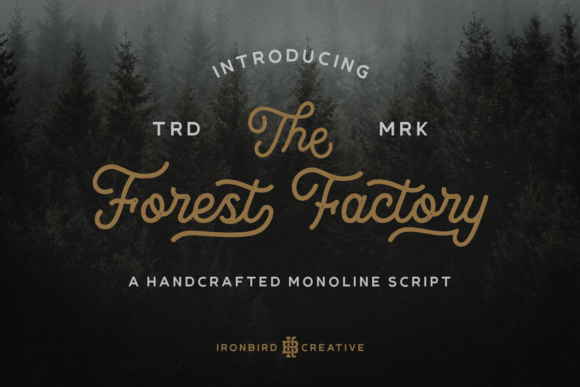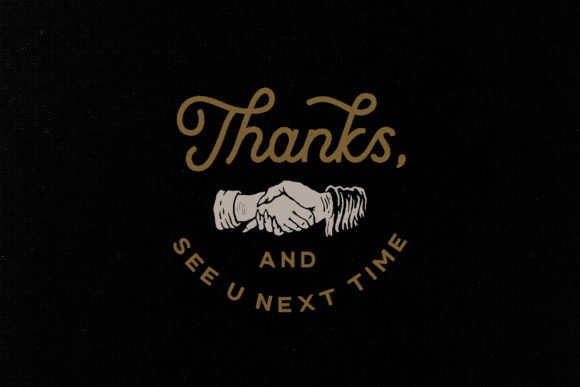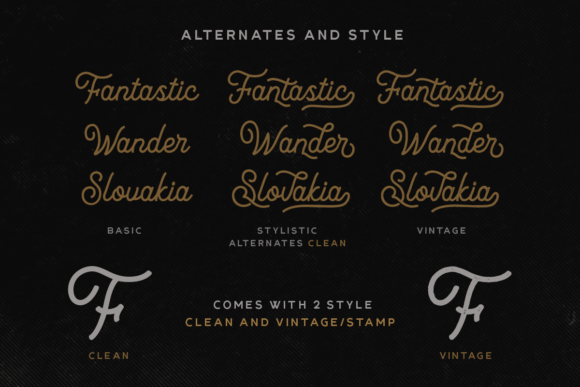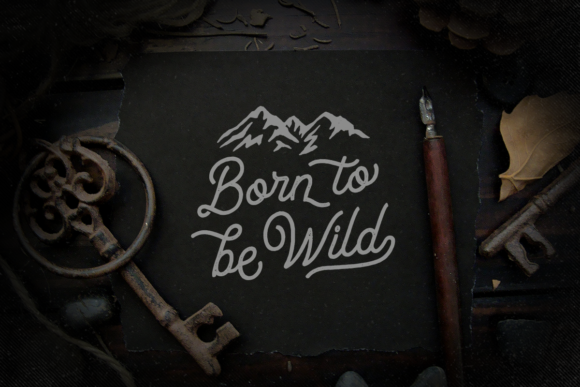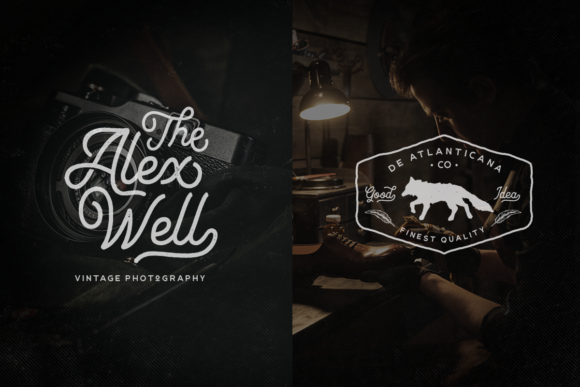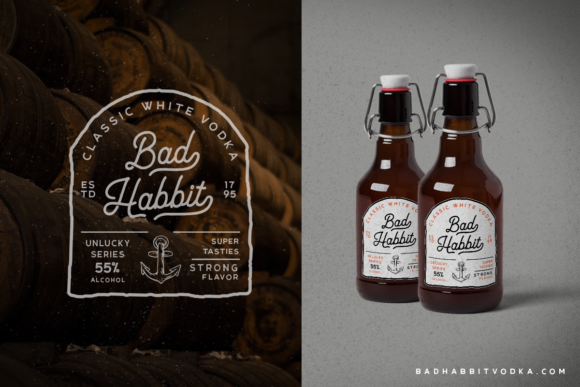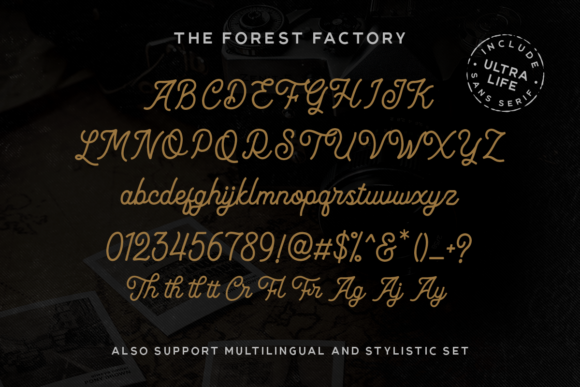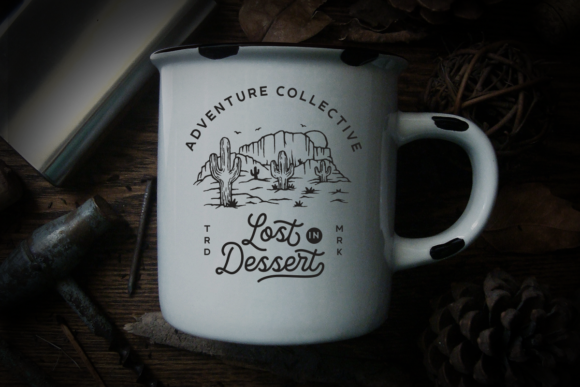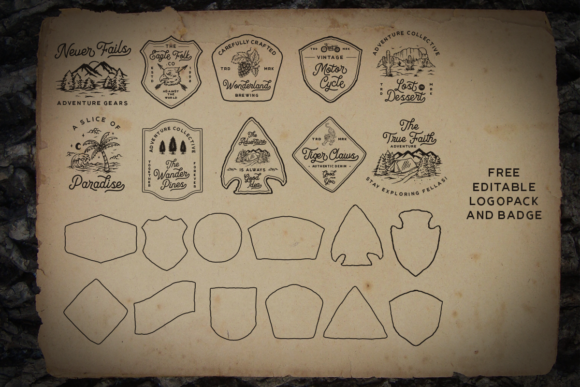
The Forest Factory Font
About The Forest Factory Font
The Forest Factory is a handcrafted monoline font. It has a vintage and classic feel with an old, handmade look. Included in this download are various styles which gives you the opportunity to create unique designs, every time you use it!